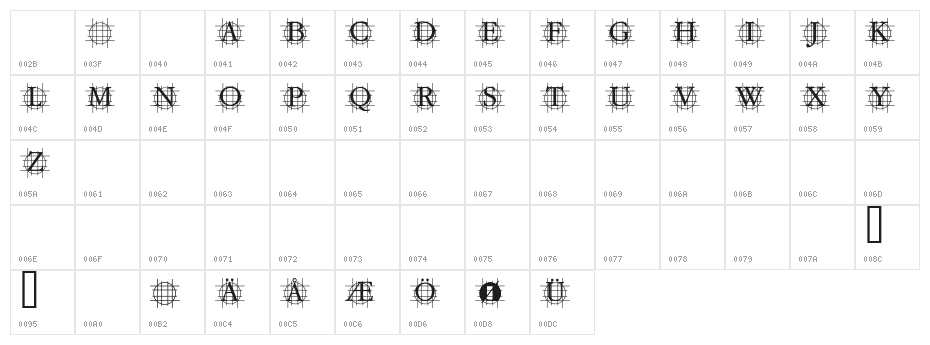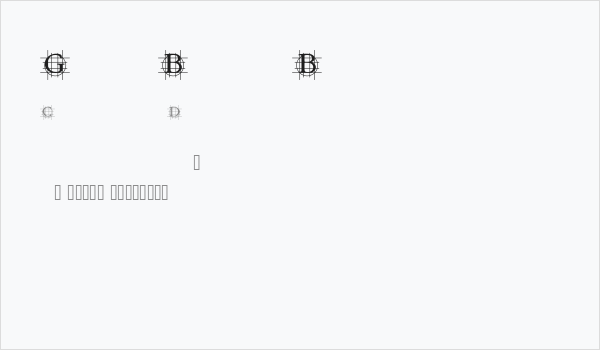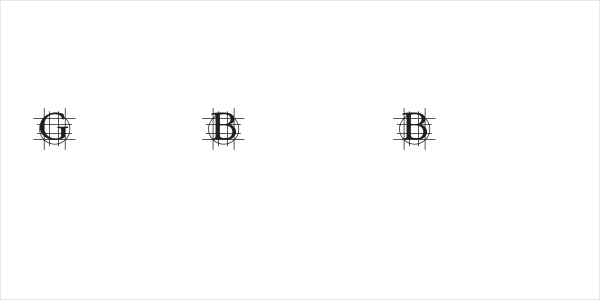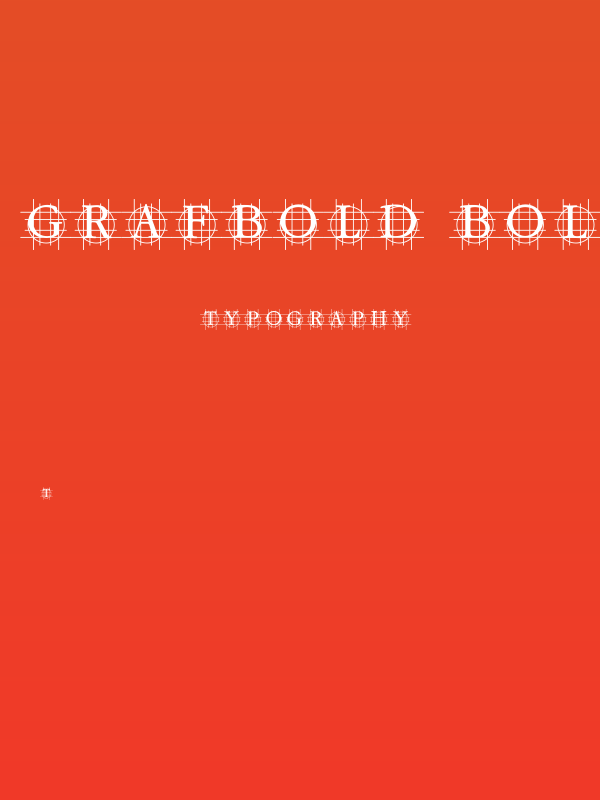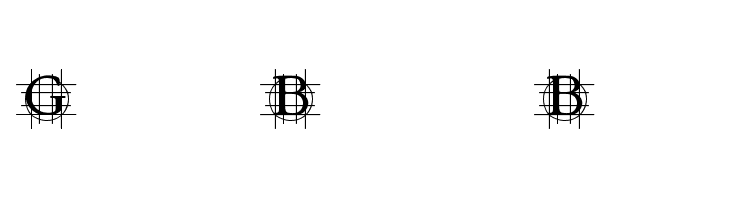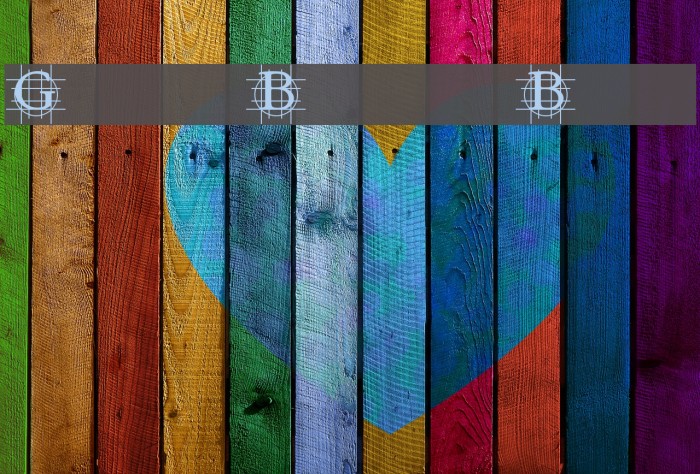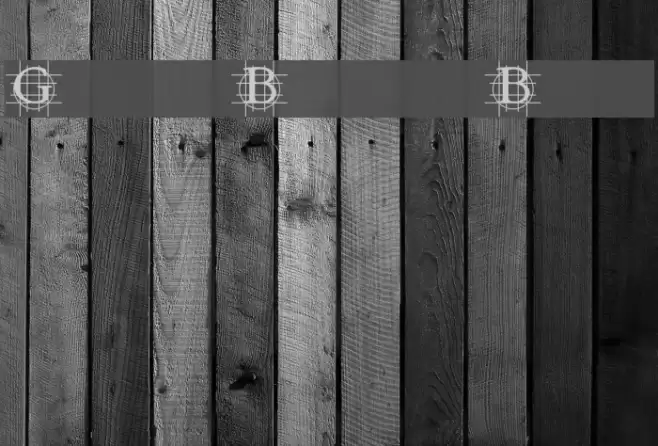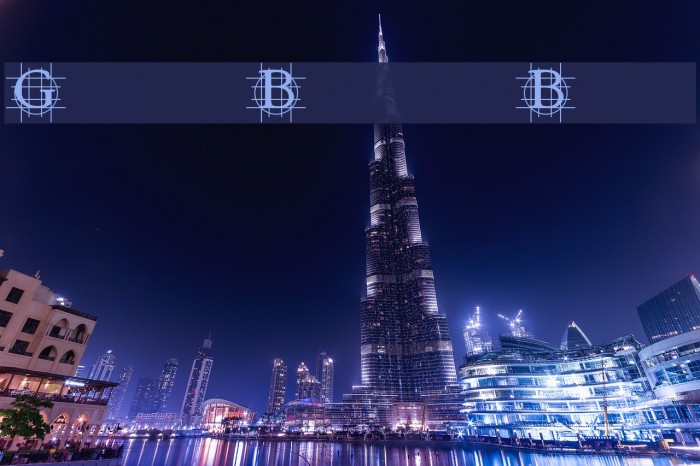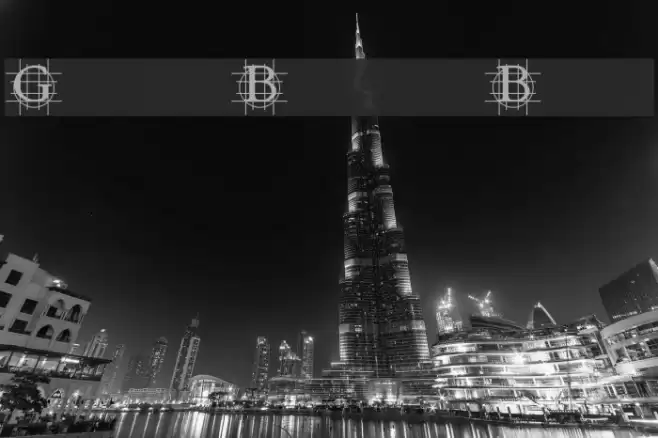
GrafBold Bold Font
GrafBold Bold Description
This font features a bold, geometric design with a strong architectural influence. The uppercase letters are constructed with precise lines and angles, giving them a structured and technical appearance. The characters are enclosed within a grid-like framework, adding to the industrial feel. The font's unique style is characterized by its use of intersecting lines and overlapping shapes, creating a sense of depth and complexity. The overall look is modern and innovative, making it suitable for projects that require a futuristic or technical aesthetic.
| Use Case | Logos, Headlines, Posters |
| Proposed Projects | Ideal for architectural designs, technical manuals, futuristic branding, and innovative product packaging. |